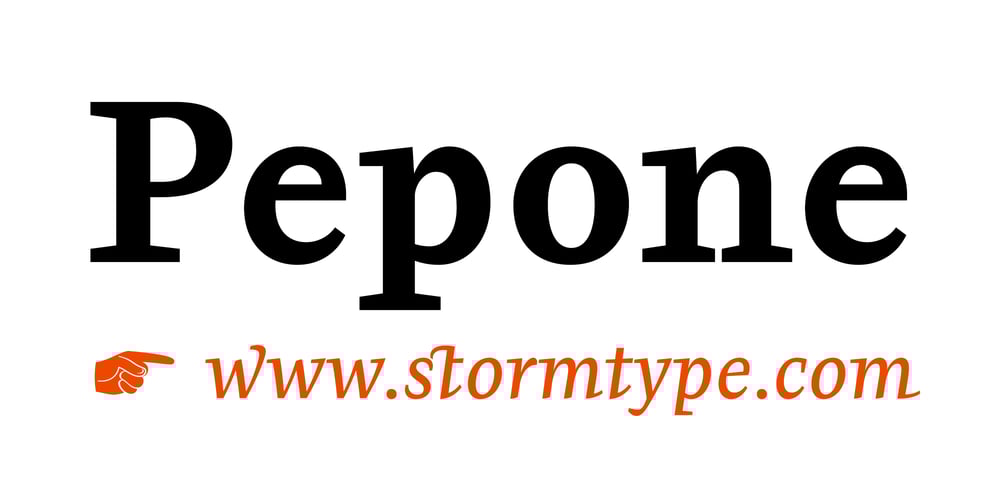
Pepone
Pepone font
Pepone Font Family was designed by František Štorm and published by Storm Type Foundry. Pepone contains 24 styles and family package options. This typeface is primarily optimized for the setting of belles-lettres. The regular styles are balanced to suit small text sizes and enable the reading of long portions of text. The development of the typeface was guided by the goal of creating a contemporary, discreet book serif, with modern expression and numerous functions. Letters feature reduced contrast, the lighter styles may evoke wired letters, while the heavier ones bear distinct slab serif references. The extremes thus work in harmony and fulfil the demanding requirements of advertising and magazine layout. The typeface is suitable for bottle labels, invitations, exhibition catalogs and posters, for printed and online presentations alike. The name Pepone was chosen as an homage to Josef Kroutvor. Of course, the typeface isn’t solely reserved for the setting of the works of Josef K. On the contrary – we’d like to present a universal typeface suited for literature, catalogs and magazines. It wouldn’t be the first and the last example of a typeface created with a specific purpose in mind, which later became used universally.